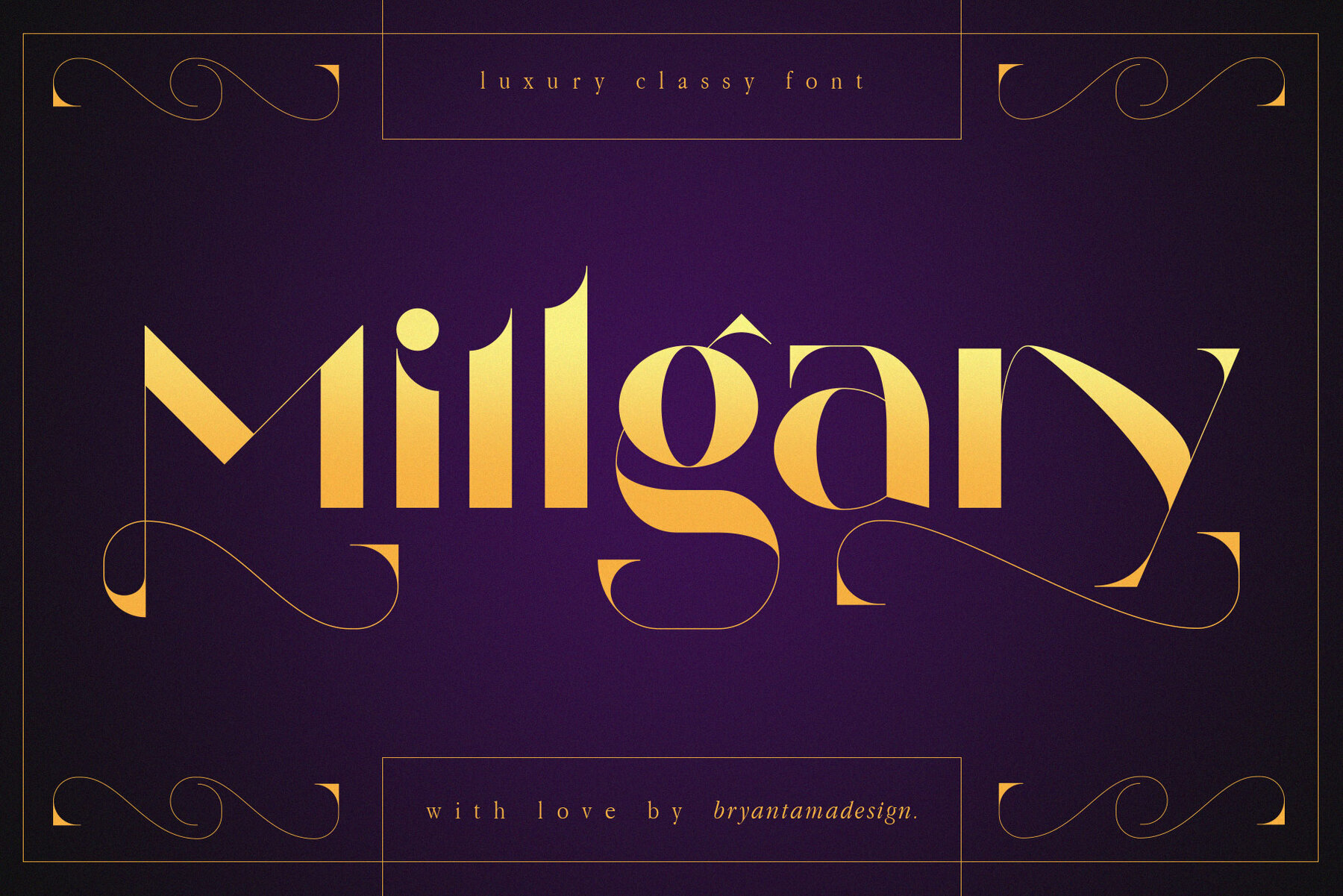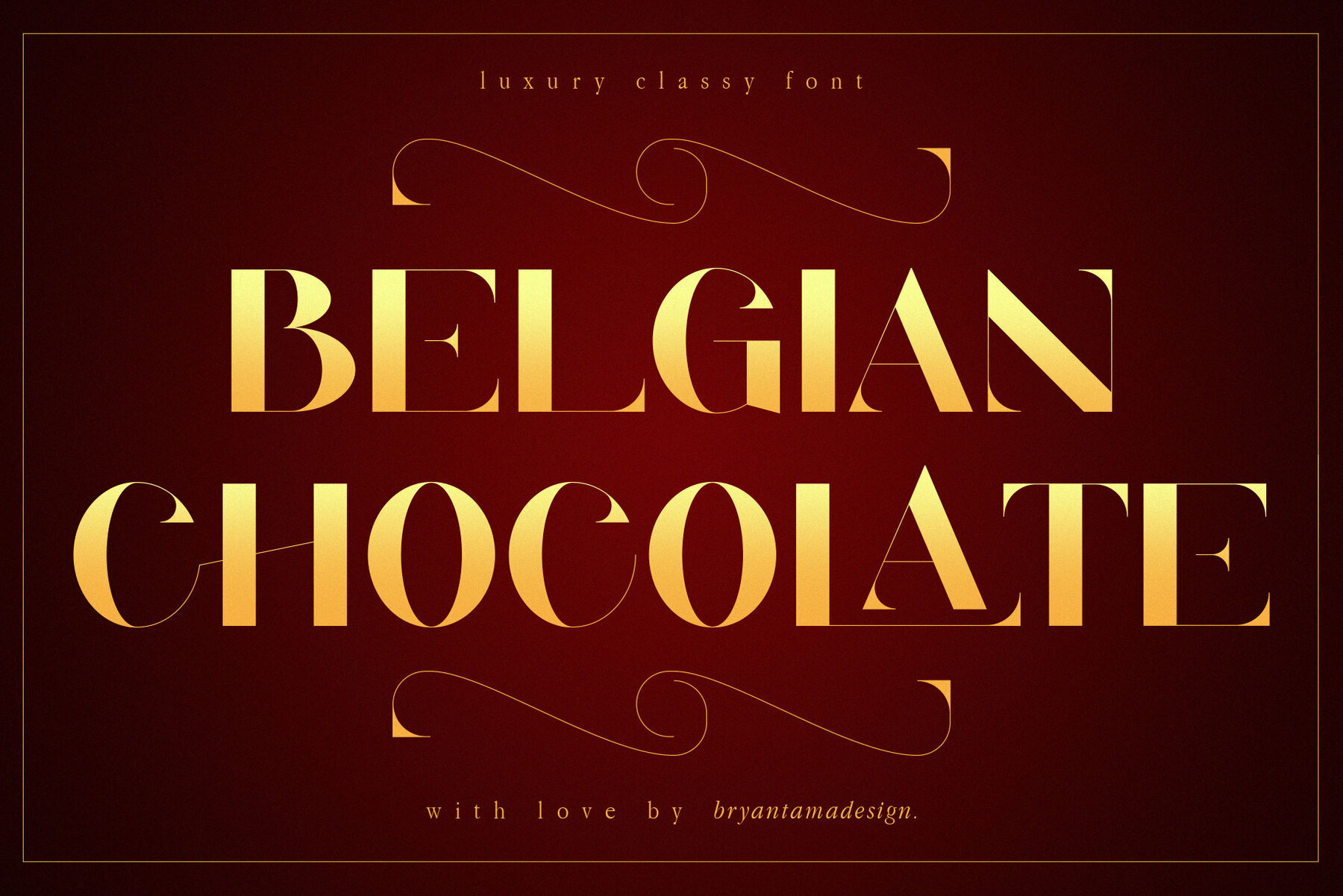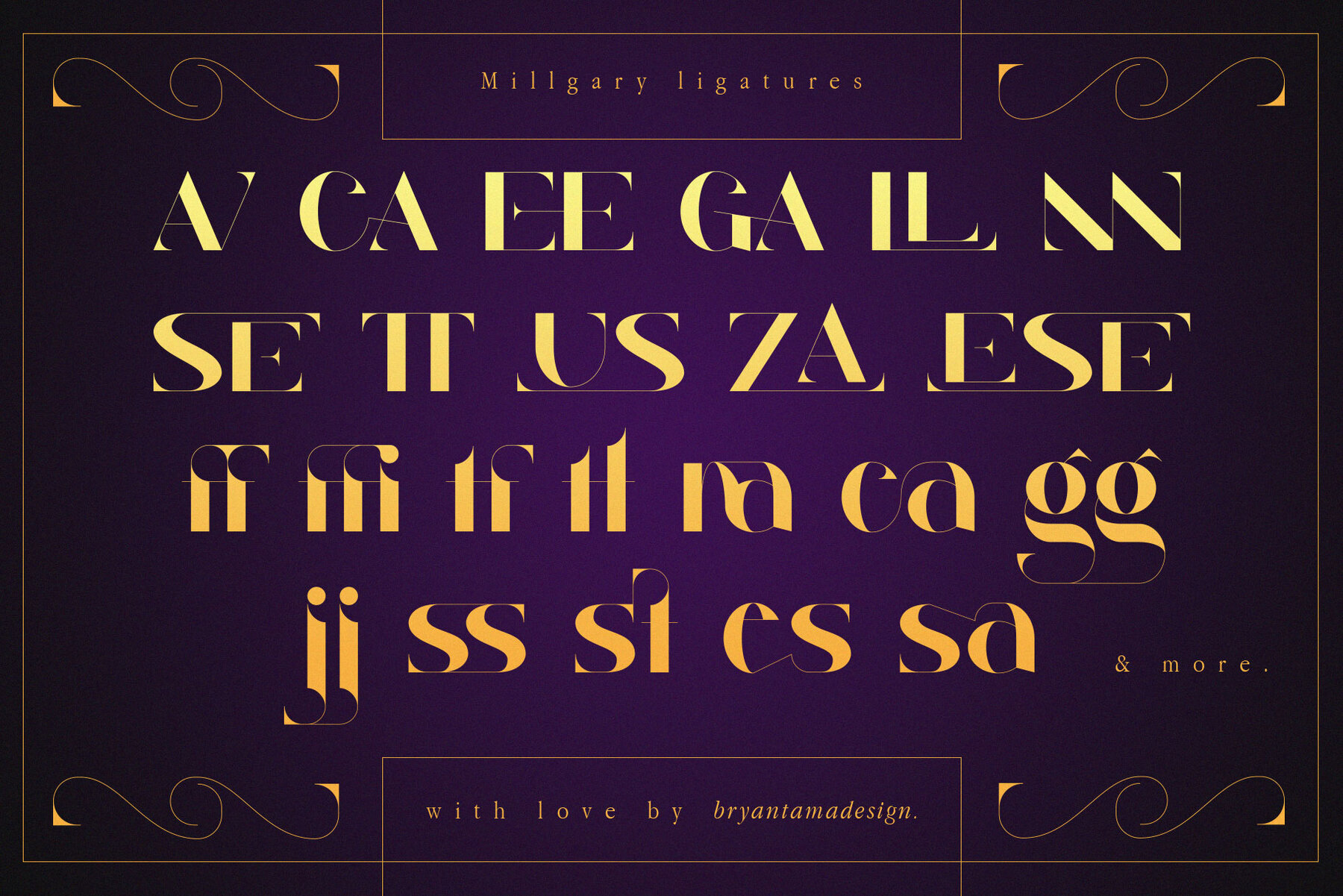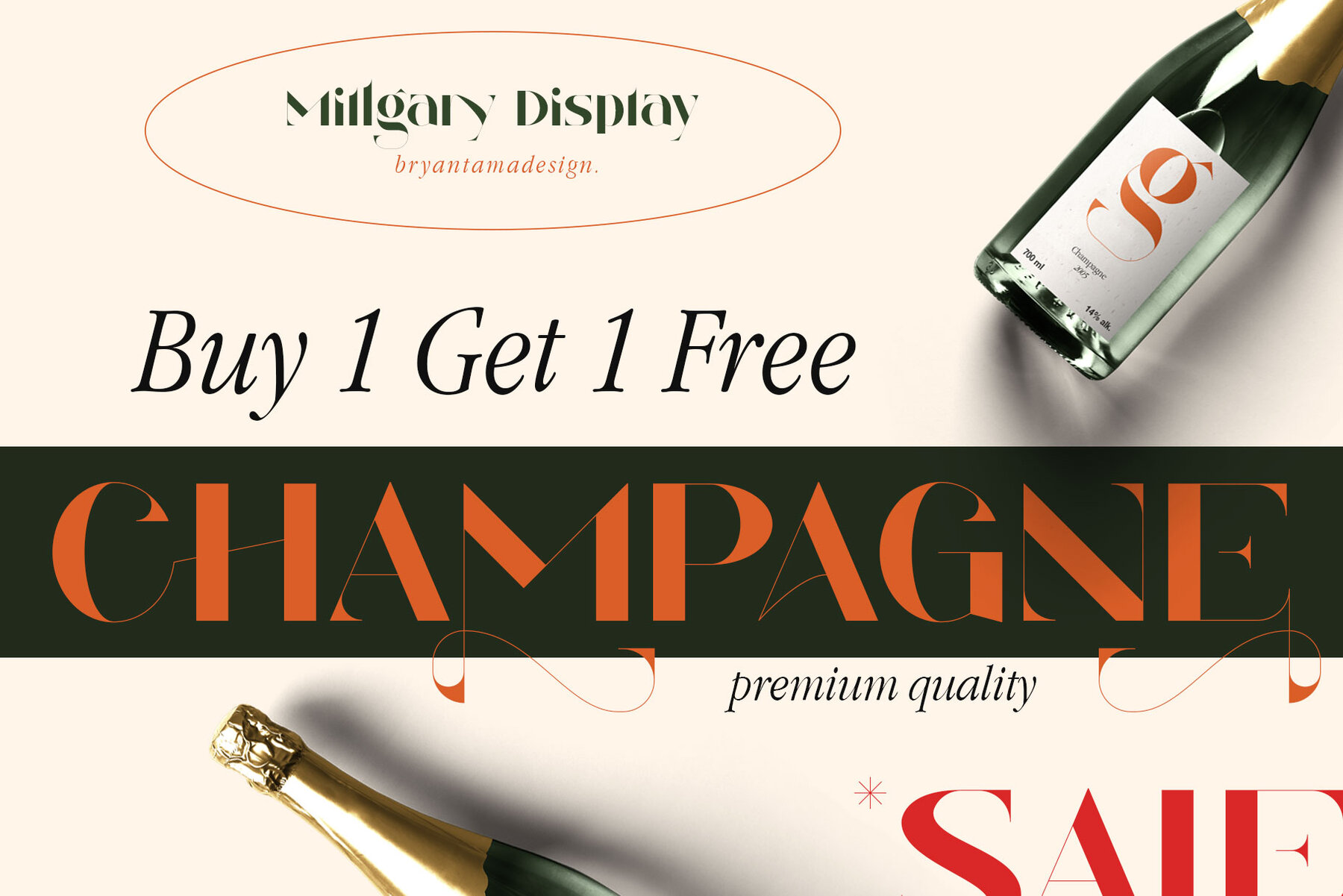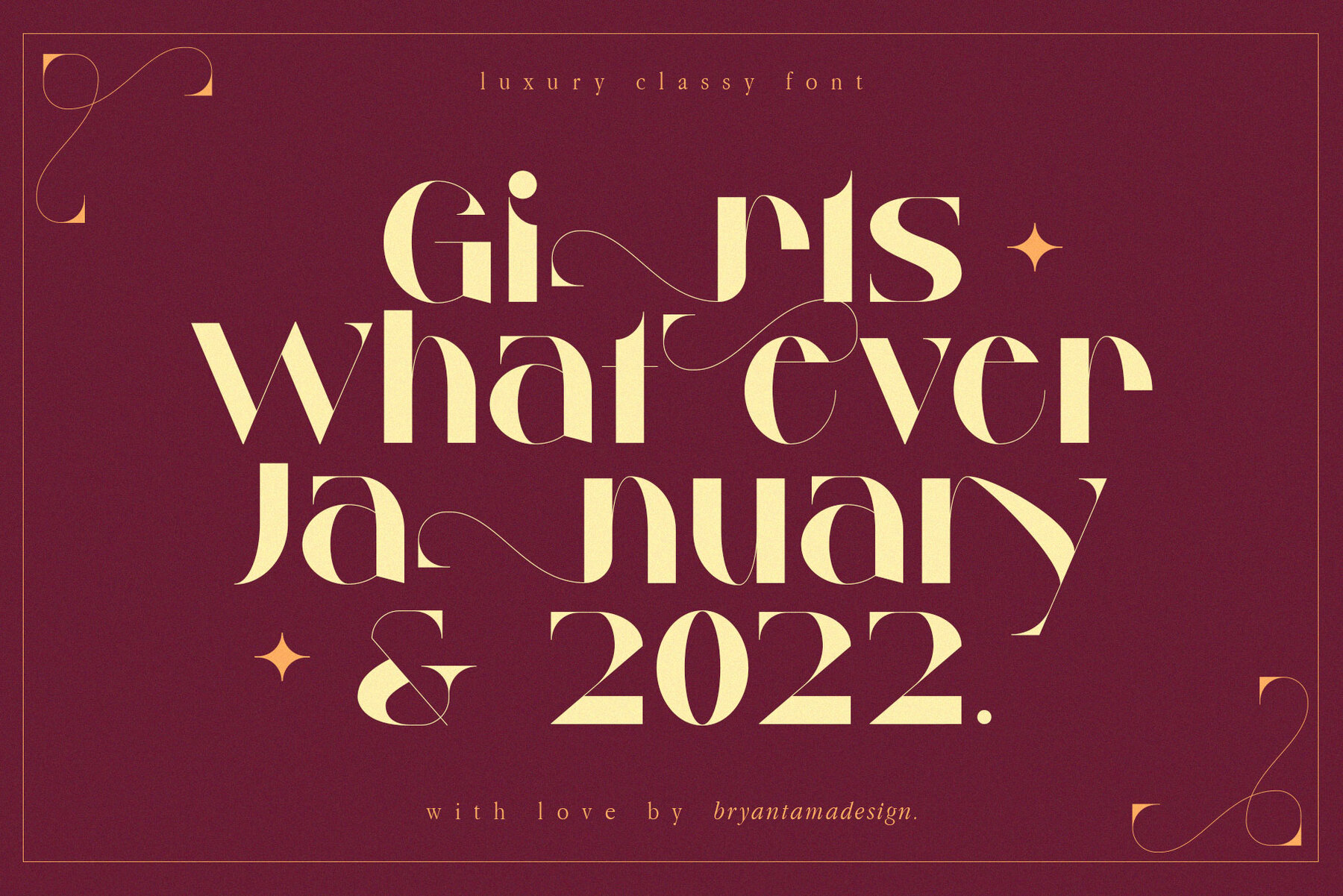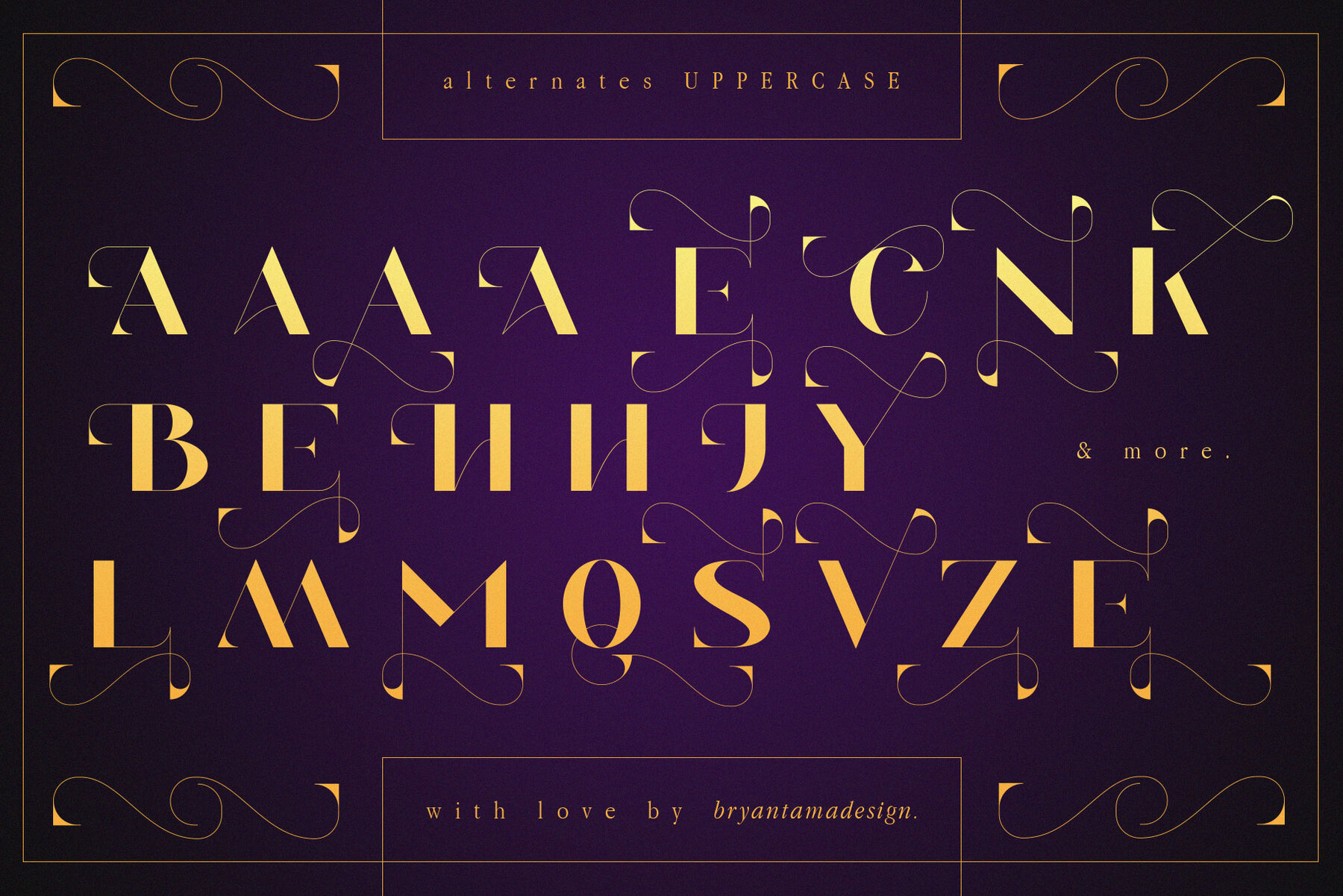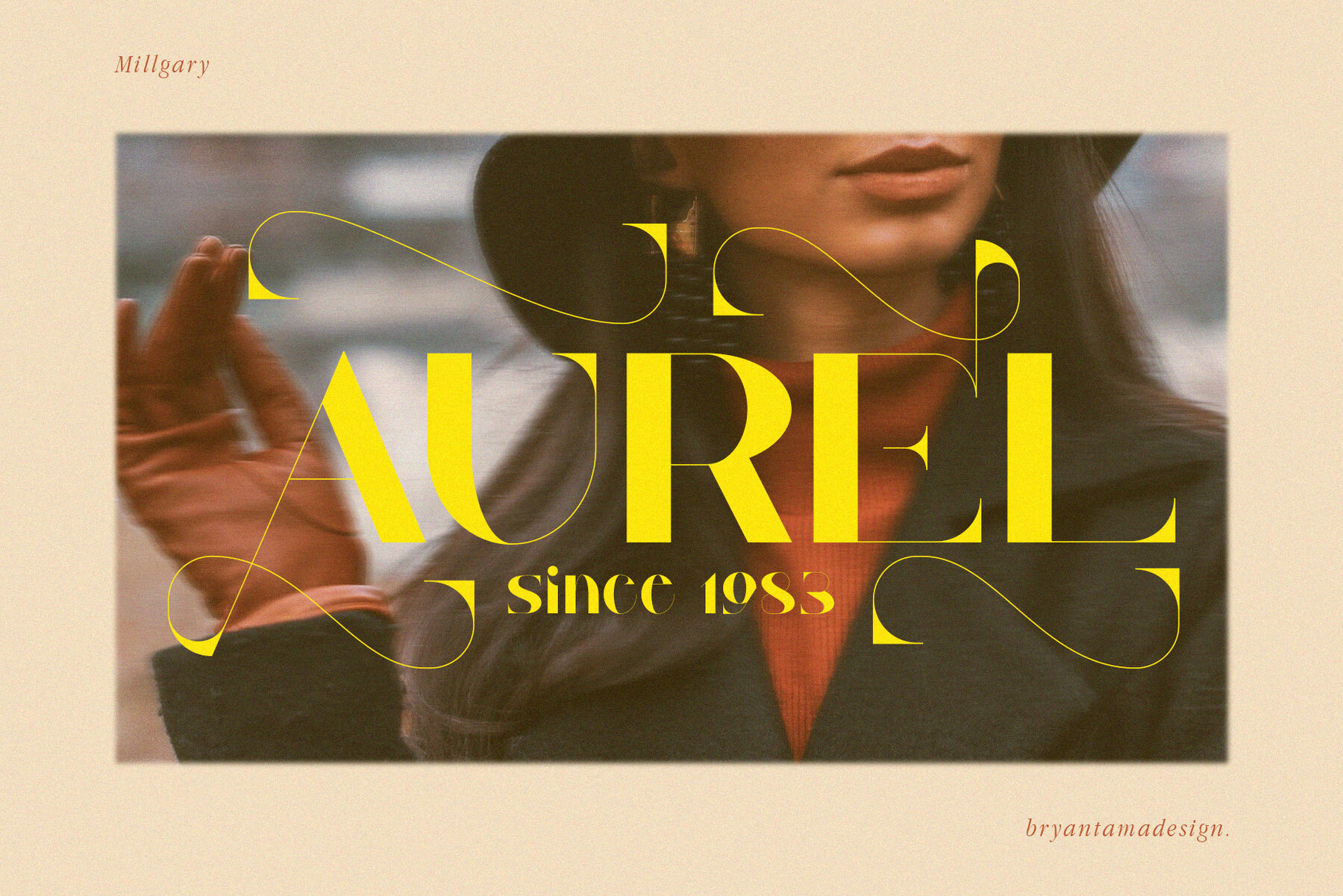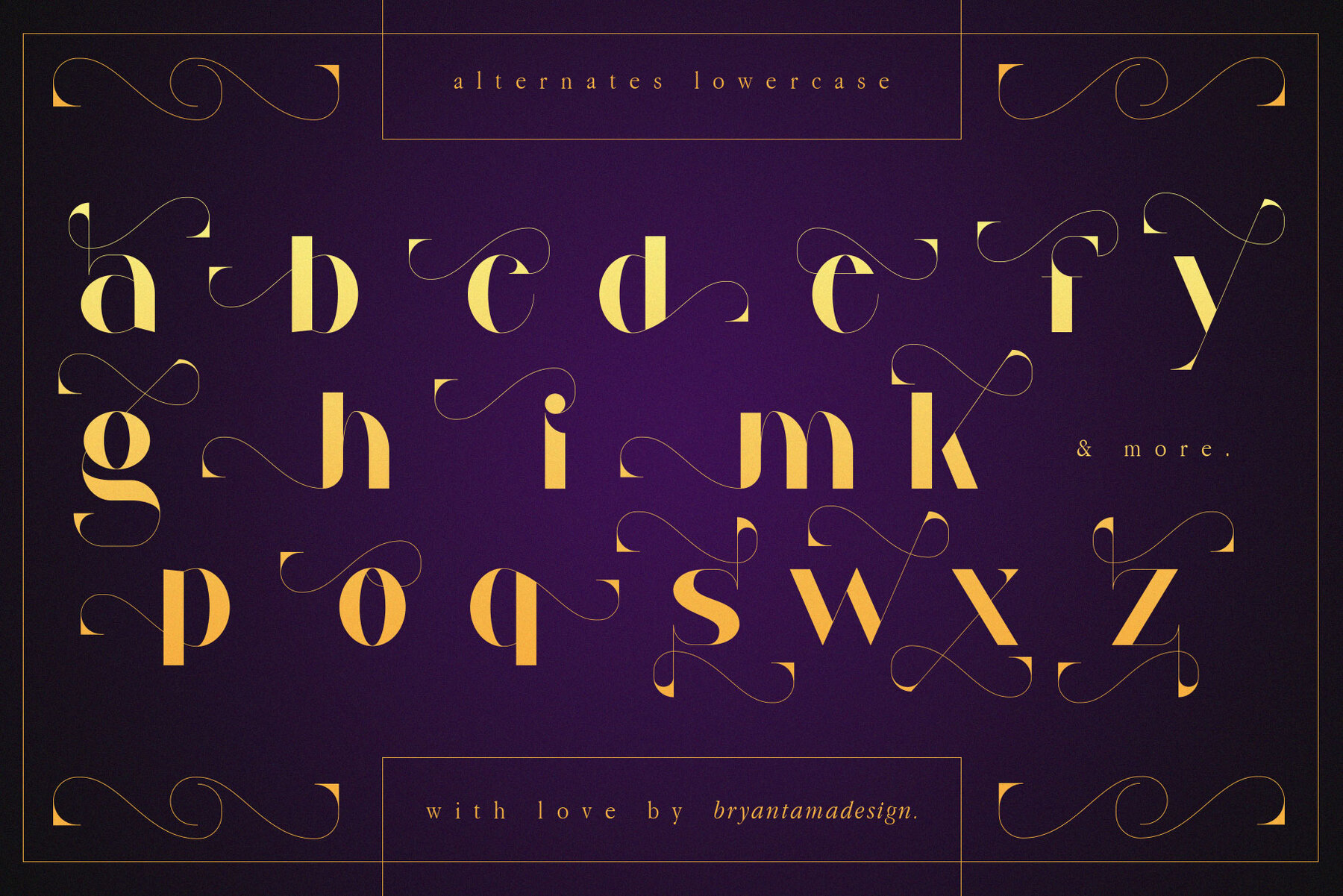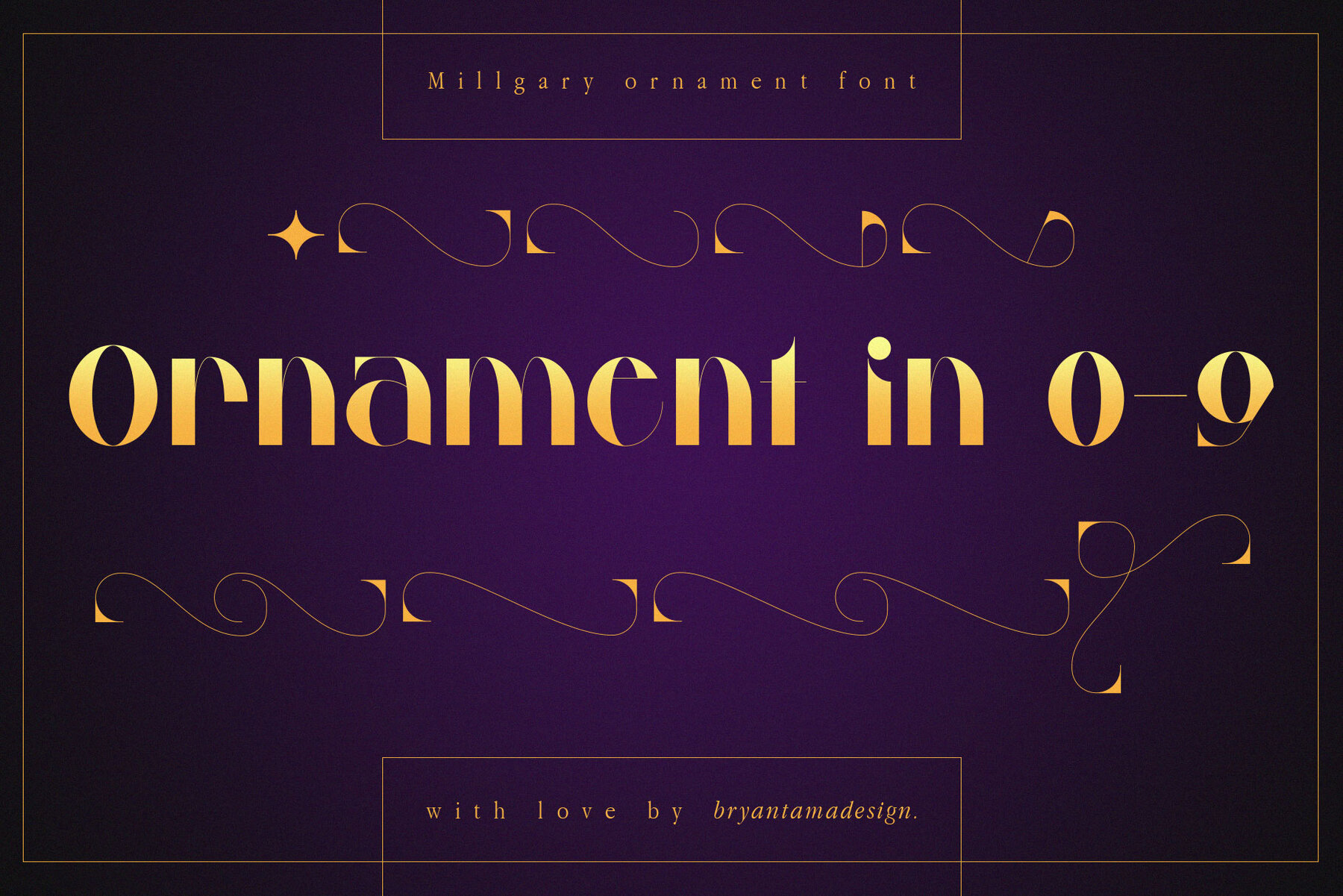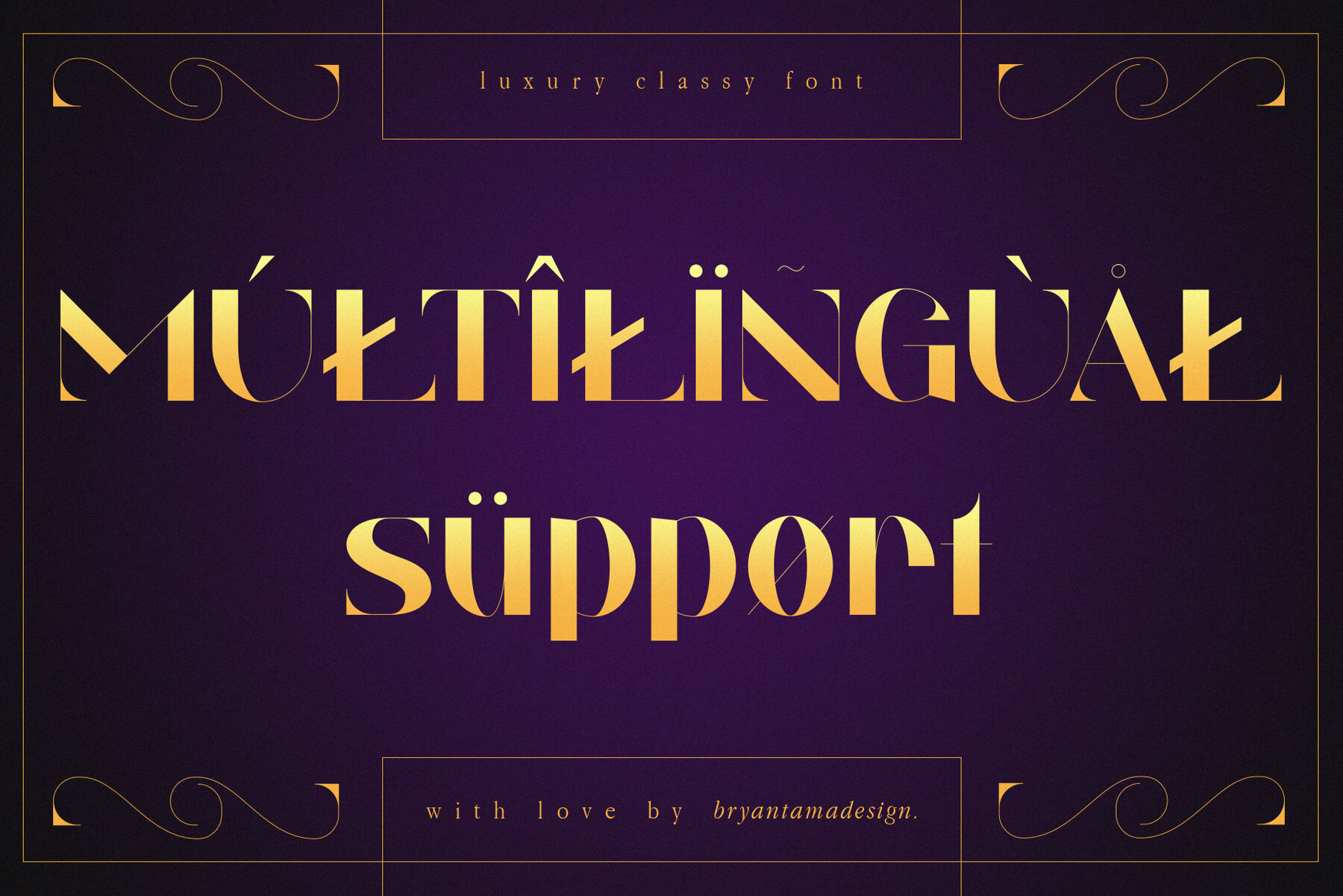
Millgary Font
Crafted with inspiration from the classic European architectural landscape, Millgary embodies sophistication and grace. Its unique blend of ornamental flair and contemporary design makes it ideal for branding, social media, and packaging.Millgary: A Typeface with Heritage and Elegance
Embrace the elegance of European-inspired design with Millgary, a versatile addition to any creative project.